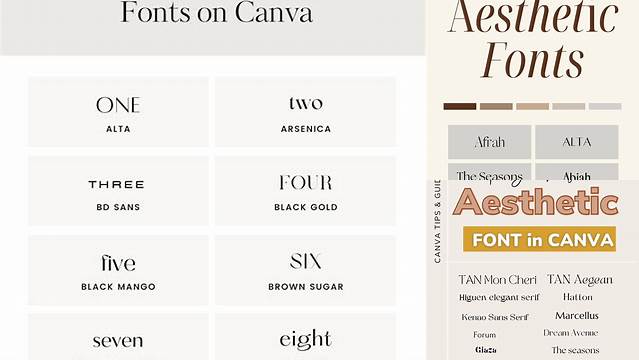
Aesthetic Canva Fonts For Numbers: Guide
Hey guys! Ever find yourself scrolling through Canva, trying to find that perfect font for your numbers? It can be a real headache, right? You want something that looks amazing, fits your vibe, and makes your designs pop. Well, you're in the right place! This guide is all about helping you discover the most aesthetic Canva fonts for numbers, so you can create designs that are not only eye-catching but also convey the right message. We'll dive into a variety of styles, from sleek and modern to playful and whimsical, ensuring you find the perfect match for your project. So, let's get started and transform your numbers into works of art!
1. Best Modern Aesthetic Fonts for Numbers in Canva
When it comes to modern design, the fonts you choose for your numbers can make a huge difference. We're talking about fonts that scream sophistication, clarity, and a touch of minimalist chic. Think clean lines, geometric shapes, and an overall sense of sleekness. The aesthetic Canva fonts that fall into this category are perfect for projects where you want to convey professionalism, innovation, or a cutting-edge feel. For example, if you're designing a presentation for a tech startup, modern fonts will help you communicate a forward-thinking approach. Or, if you're creating marketing materials for a luxury brand, a modern font will add to the sense of elegance and exclusivity. Some popular choices include Montserrat, Raleway, and Bebas Neue. These fonts have a timeless appeal that works well across various design applications. They're also highly legible, ensuring that your numbers are not only aesthetically pleasing but also easy to read. When incorporating modern fonts into your designs, consider the spacing between characters and the overall visual balance. A little bit of kerning can go a long way in enhancing the readability and aesthetic appeal of your numbers.
2. Classic Serif Fonts for Numbers in Canva
There’s something timeless about serif fonts, isn't there? They evoke a sense of tradition, elegance, and authority. When you're looking for aesthetic Canva fonts that bring a touch of class to your numbers, serif fonts are your go-to. Think of fonts like Times New Roman, Garamond, and Playfair Display. These fonts have been around for ages, and for good reason! They’re incredibly versatile and can be used in a wide range of designs, from formal documents to wedding invitations. Serif fonts are characterized by the small decorative strokes, or “serifs,” at the end of each character. These serifs add a touch of sophistication and make the font more readable, especially in print. When choosing a serif font for your numbers, consider the context of your design. A classic serif font might be perfect for a formal invitation or a financial report, but it might not be the best choice for a trendy social media graphic. Experiment with different serif fonts to find the one that best matches your aesthetic and the message you're trying to convey. And don't be afraid to mix and match serif fonts with sans-serif fonts to create visual interest.
3. Playful and Fun Fonts for Numbers in Canva
Sometimes, you just want your numbers to have a little personality, right? That's where playful and fun fonts come in! These aesthetic Canva fonts are perfect for projects where you want to convey a sense of joy, creativity, and lightheartedness. Think of designs for children's parties, quirky social media graphics, or anything that needs a touch of whimsy. Fonts like Chewy, Luckiest Guy, and Bangers are excellent choices for adding a playful vibe to your numbers. They often feature rounded shapes, exaggerated curves, and a generally less formal appearance. When using playful fonts, it’s important to strike a balance between fun and legibility. While you want your numbers to stand out, you also want to make sure they're easy to read. Consider using a larger font size and ensuring there’s enough contrast between the font color and the background. Playful fonts can also be a great way to add visual interest to otherwise simple designs. Experiment with different colors, sizes, and placements to create a dynamic and engaging composition. Just remember, the goal is to have fun and let your creativity shine!
4. Elegant Script Fonts for Number Design in Canva
For that touch of sophistication and grace, elegant script fonts are where it's at! These aesthetic Canva fonts can transform your numbers into works of art, adding a handwritten feel that's perfect for invitations, logos, and anything that needs a personal touch. Think of fonts like Great Vibes, Pacifico, and Allura. They flow beautifully, with connected letters and delicate curves that evoke a sense of luxury and refinement. Script fonts are ideal for projects where you want to convey a sense of warmth and intimacy. They’re often used in wedding invitations, greeting cards, and branding for businesses that want to project a high-end image. When using script fonts for numbers, it's crucial to ensure readability. Script fonts can sometimes be challenging to read, especially in smaller sizes, so choose a font that's clear and legible. Consider the spacing between the numbers and the overall composition of your design. A little bit of extra space can make a big difference in readability. Also, be mindful of the context. While a script font might be perfect for a wedding invitation, it might not be the best choice for a financial report.
5. Bold and Impactful Fonts for Numbers in Canva
Sometimes, you need your numbers to really stand out, right? That's where bold and impactful fonts come into play. These aesthetic Canva fonts are designed to grab attention and make a statement. Think of fonts like Impact, Bebas Neue (again, it’s versatile!), and Anton. They’re perfect for headlines, posters, and anything where you want your numbers to have a strong visual presence. Bold fonts are characterized by their thick strokes and solid appearance. They command attention and can be used to create a sense of urgency or importance. When using bold fonts for numbers, it's essential to consider the overall balance of your design. A bold font can easily overpower a design if it’s not used carefully. Make sure to pair it with a complementary font that’s less assertive, and pay attention to the spacing and layout of your design. Bold fonts are also great for creating visual hierarchy. By using a bold font for your most important numbers, you can draw the viewer’s eye to the key information. Just remember, the goal is to create a design that’s both visually striking and easy to understand.
6. Minimalist Fonts for Number Aesthetics in Canva
Less is often more, especially when it comes to minimalist design. Minimalist fonts are all about simplicity, clarity, and understated elegance. These aesthetic Canva fonts are perfect for projects where you want to convey a sense of sophistication without being overly flashy. Think of fonts like Open Sans, Lato, and Roboto. They’re clean, modern, and highly legible, making them ideal for a wide range of applications. Minimalist fonts are characterized by their clean lines, simple shapes, and lack of embellishments. They’re designed to be unobtrusive, allowing the content to take center stage. When using minimalist fonts for numbers, it’s crucial to pay attention to the details. The spacing between characters, the line height, and the overall layout can all have a significant impact on the aesthetic appeal of your design. Consider using a neutral color palette to further enhance the minimalist feel. Minimalist fonts are incredibly versatile and can be used in everything from websites to brochures. They’re a great choice for projects where you want to convey a sense of professionalism and clarity. Just remember, the key to minimalist design is to keep things simple and uncluttered.
7. Vintage and Retro Number Fonts in Canva
For a touch of nostalgia and old-school charm, vintage and retro fonts are the way to go! These aesthetic Canva fonts bring a unique character to your numbers, evoking a sense of history and craftsmanship. Think of fonts like Bebas Neue (yes, it can be retro too!), Lobster, and Amatic SC. They often feature stylized serifs, unique letterforms, and a generally more decorative appearance. Vintage and retro fonts are perfect for projects where you want to create a sense of authenticity and nostalgia. They’re often used in branding for businesses that want to project a classic or timeless image. When using vintage and retro fonts for numbers, it’s important to consider the context of your design. These fonts can be quite distinctive, so they might not be the best choice for every project. However, when used correctly, they can add a lot of personality and visual interest. Experiment with different color palettes and textures to further enhance the vintage or retro feel. Vintage fonts are a great way to add a unique touch to your designs, but make sure they complement the overall aesthetic.
8. Handwritten and Calligraphy Number Styles on Canva
If you're aiming for a personal and artistic touch, handwritten and calligraphy fonts are your best friends. These aesthetic Canva fonts bring a human element to your numbers, making them feel more intimate and unique. Think of fonts like Dancing Script, Brush Script MT, and Pacifico. They mimic the natural flow of handwriting, adding a touch of elegance and warmth. Handwritten and calligraphy fonts are perfect for projects where you want to convey a sense of creativity and individuality. They’re often used in invitations, greeting cards, and branding for creative businesses. When using handwritten and calligraphy fonts for numbers, readability is key. Some of these fonts can be quite intricate, so choose one that’s clear and legible, especially in smaller sizes. Consider the spacing between the numbers and the overall layout of your design. Too little space can make the numbers look cluttered, while too much space can make them feel disconnected. Handwritten fonts are a fantastic way to add a personal touch to your designs, but be mindful of their legibility and overall impact.
- Use a Limited Number of Fonts: Stick to two or three fonts in a design to maintain consistency and visual harmony.
- Pay Attention to Spacing and Alignment: Adjust spacing and alignment to improve readability and visual balance.
- Test Your Design: Preview your design on different devices and in different formats to ensure the numbers look clear and impactful.
By following these best practices, you can create Canva designs that are both visually appealing and effective in communicating your message.